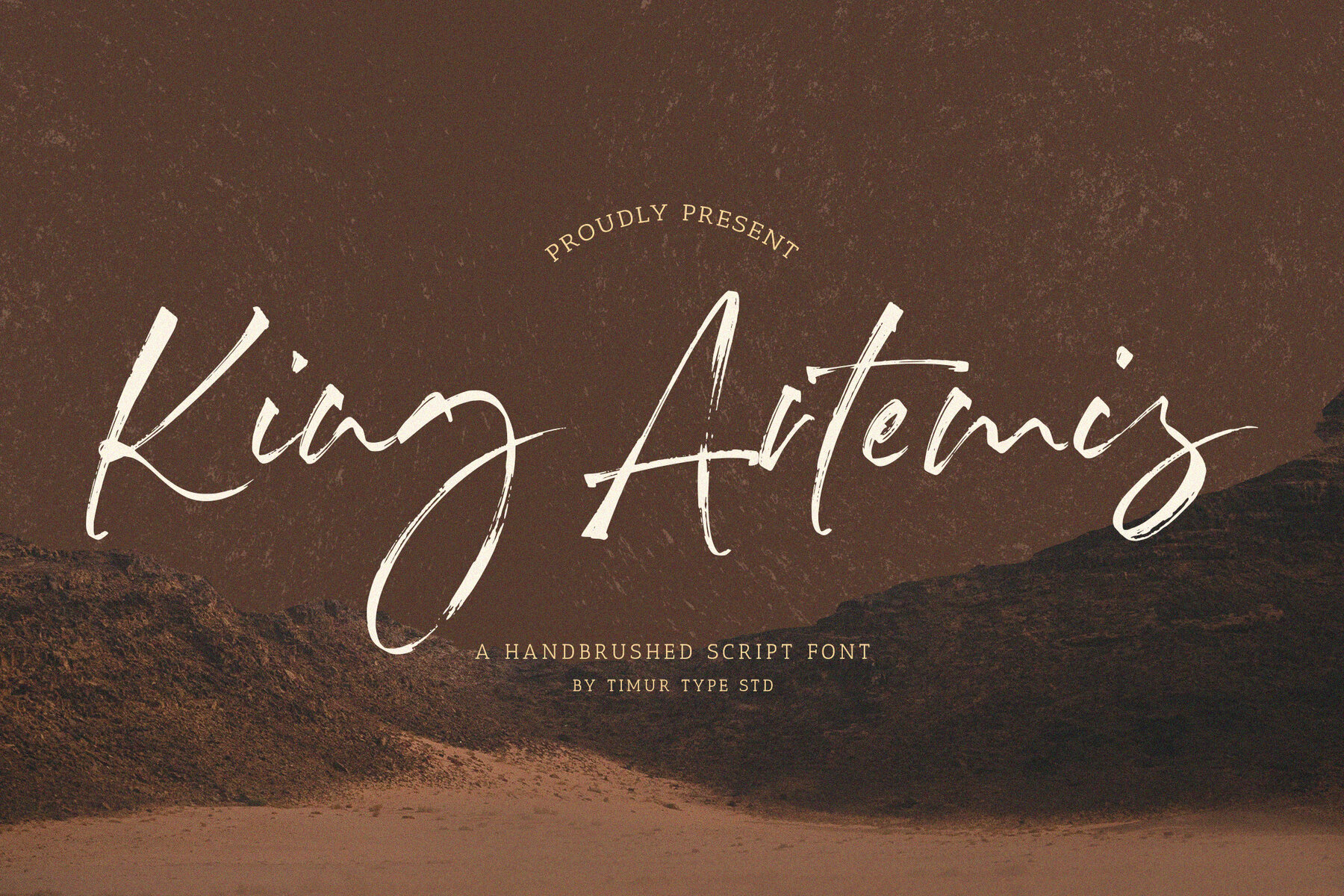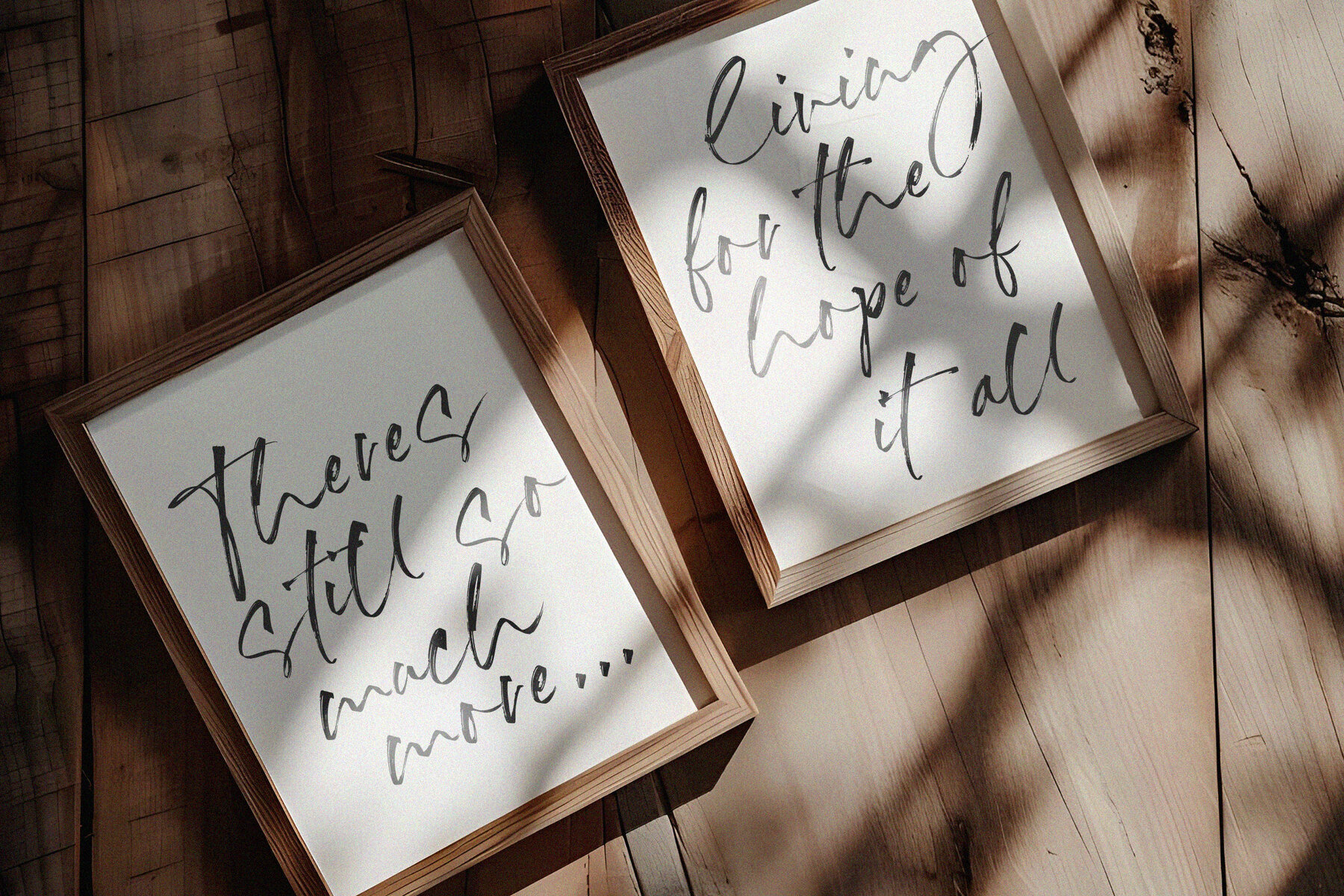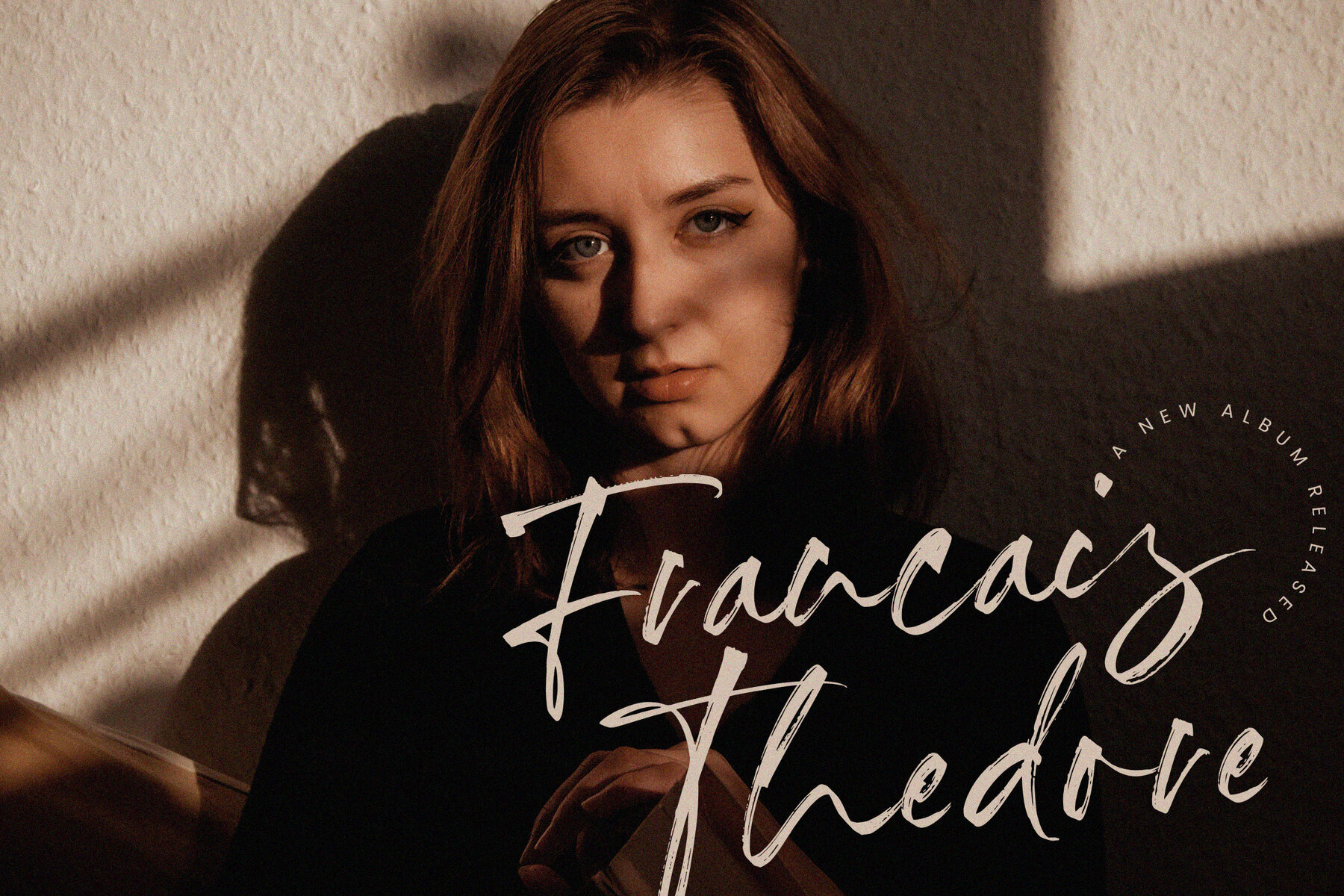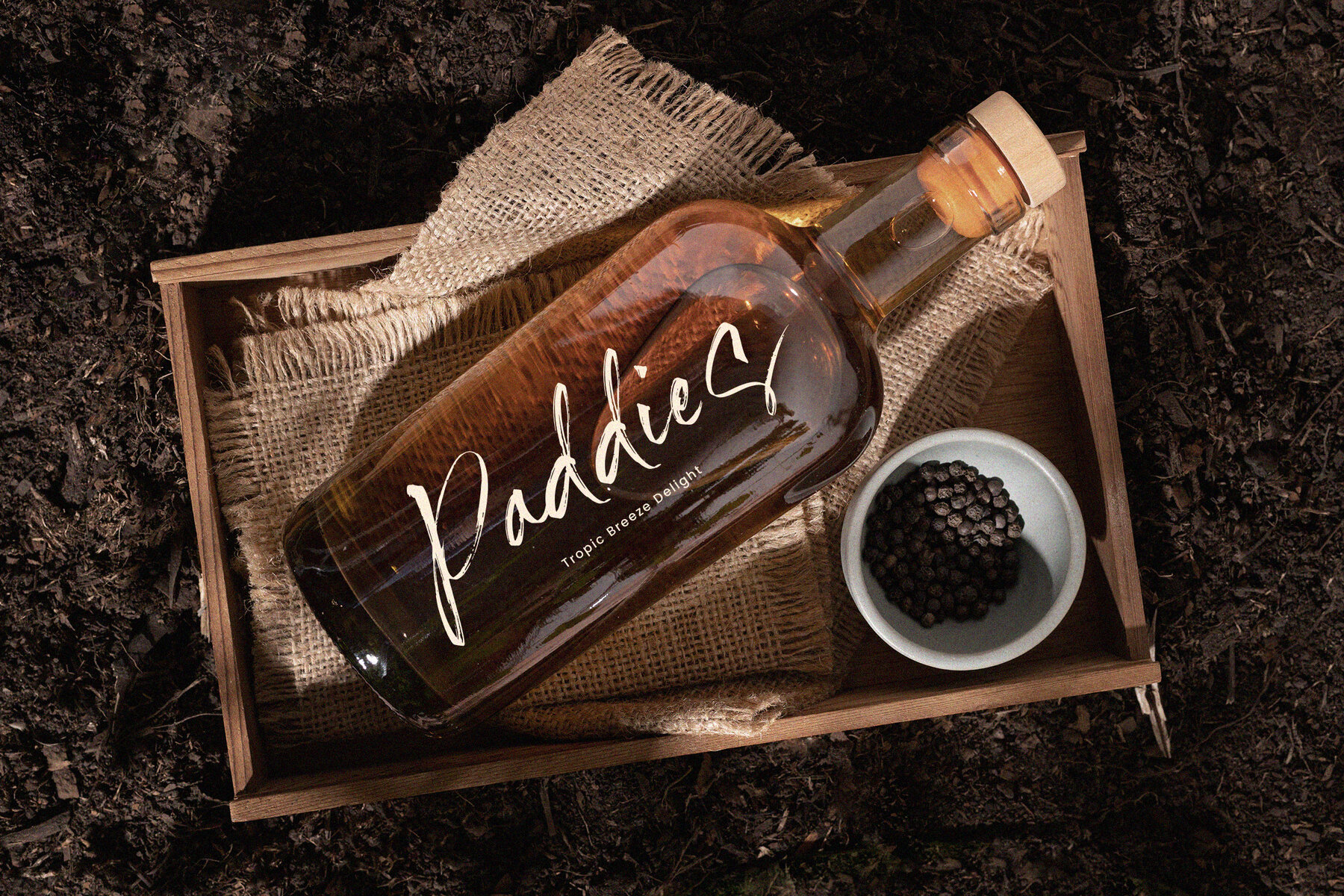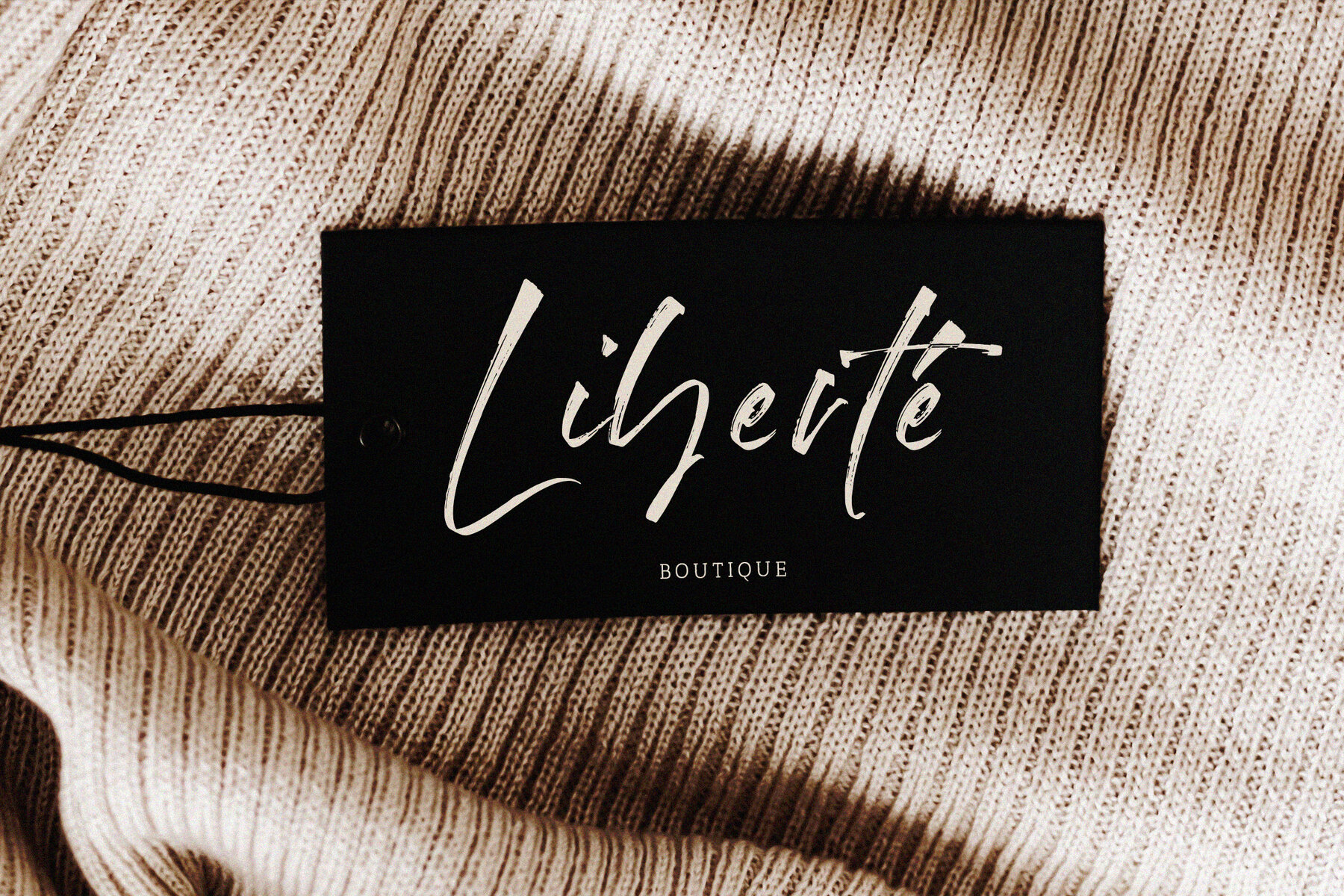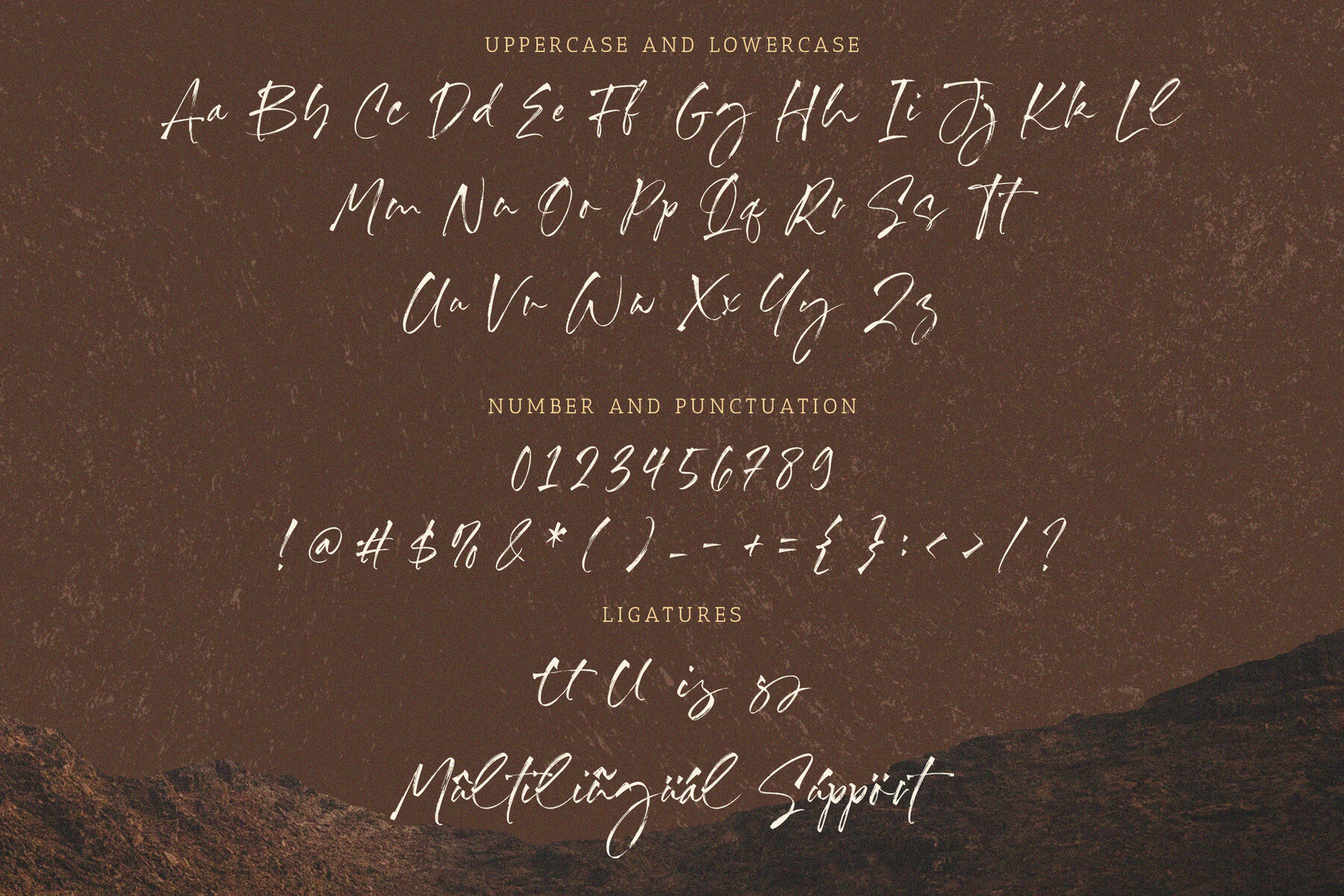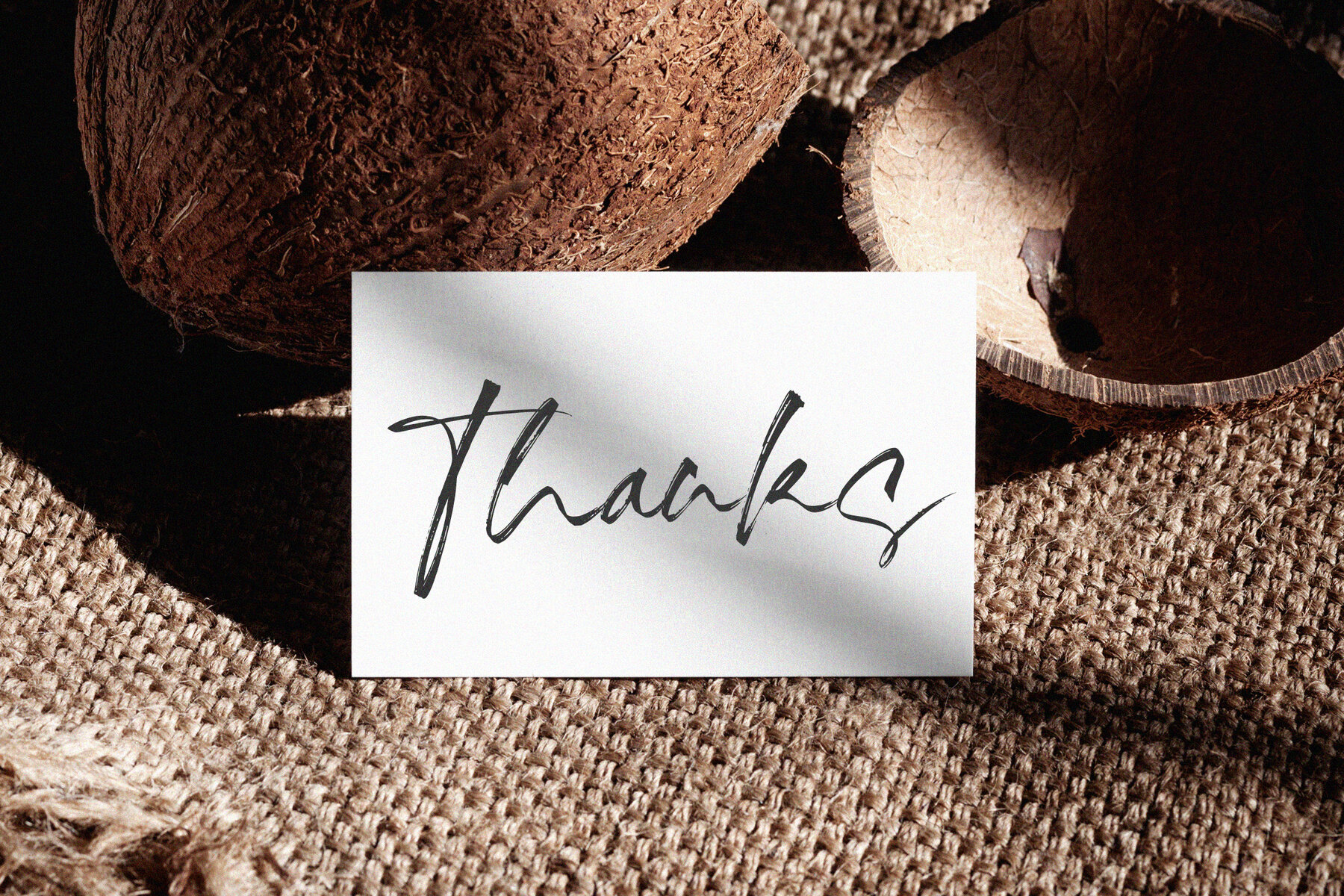
King Artemis
Discover the captivating charm of this handbrushed script font, designed to exude elegance and artistry. With its graceful strokes and flowing curves, each letter evokes a sense of royalty and sophistication, making it ideal for projects that require a touch of majestic allure. This font strikes a perfect balance between tradition and modernity, making it suitable for a variety of applications, including branding, invitations, and decorative elements.
This font's unique blend of classic craftsmanship and contemporary style ensures it stands out in any design project. Its handcrafted typography adds a distinctive flair, appealing to creators who appreciate the beauty of meticulously crafted lettering. Whether you're looking to enhance your design with artistic touches or imbue it with an air of refined elegance, this font is an excellent choice for making a statement.